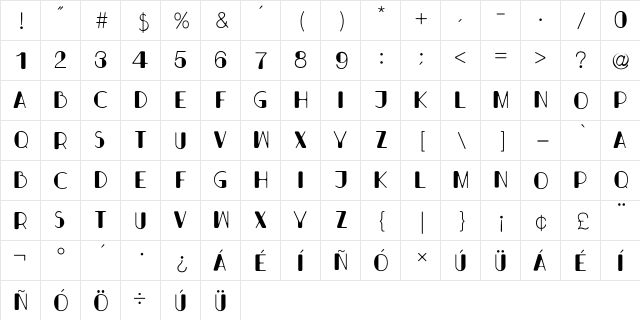
Bondi Regular Regular
| Foundry | Hubert & Fischer |
| Designer | Alejo Bergmann |
Design Context for Bondi Regular Typeface
Bondi Regular is a composed and adaptable typeface that performs quietly and consistently across a wide range of design contexts.